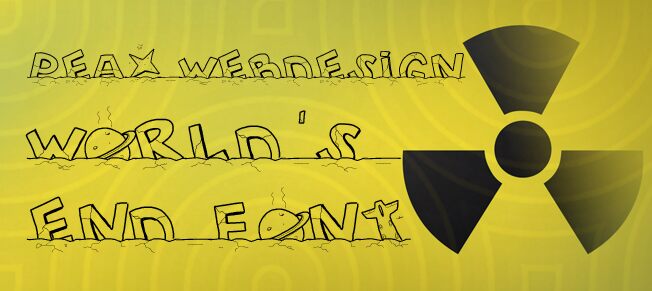
PW World Send 2112 by Peax Webdesign is a free cartoon display font with tall, uneven letters and cracked, hand-drawn outlines. The shapes lean and bulge at different angles, so the line has a loose, battered silhouette. A broken ground edge completes the effect.
Young audiences drawn to comic-book mayhem will find it suited to game graphics, event posters, and adventure merchandise. On comic covers or themed packaging, the fractured letters can become part of a ruined-wall illustration rather than functioning as ordinary type.